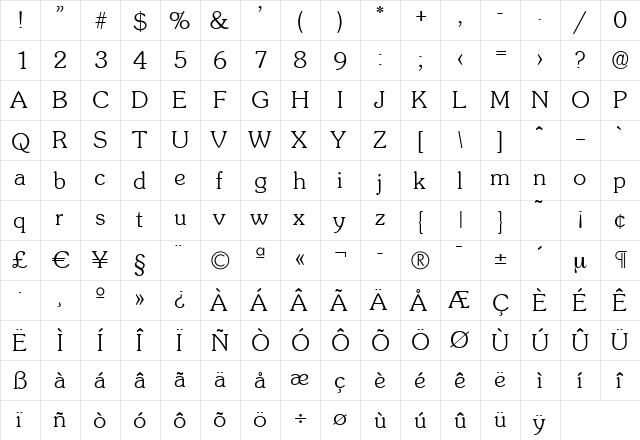
JuliusBecker-ExtraLight Regular
Design Context for JuliusBecker-ExtraLight Typeface
JuliusBecker-ExtraLight takes a measured approach to typography — its balanced proportions and neutral character make it a reliable workhorse for both digital and print work. The delicate stroke weight brings airiness and refinement to layouts.